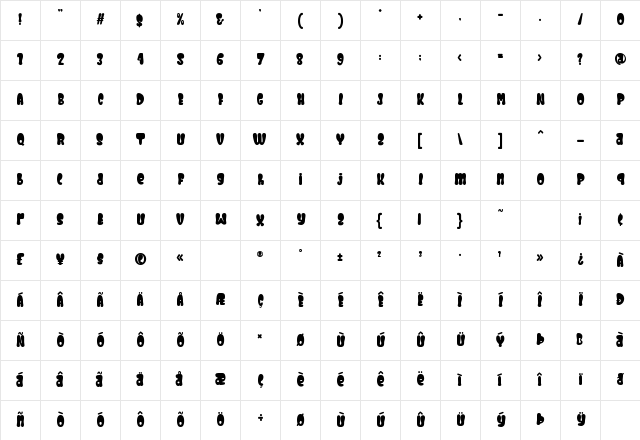
Stick Figure Two Regular
Foundry: Putracetol Studio, Karanganyar.
Designer: Putra Novembria Candra Kusuma
Design Context for Stick Figure Two
Stick Figure Two is a composed and adaptable typeface that performs quietly and consistently across a wide range of design contexts.